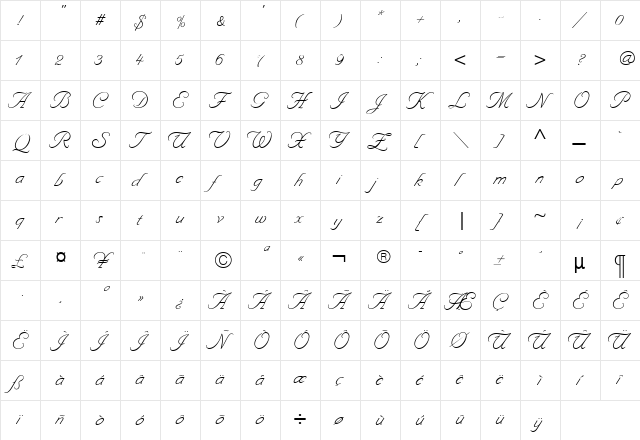
ByronLight Roman Font Preview
ByronLight Roman
Design Context for ByronLight Typeface
ByronLight takes a measured approach to typography — its balanced proportions and neutral character make it a reliable workhorse for both digital and print work. The delicate stroke weight brings airiness and refinement to layouts.